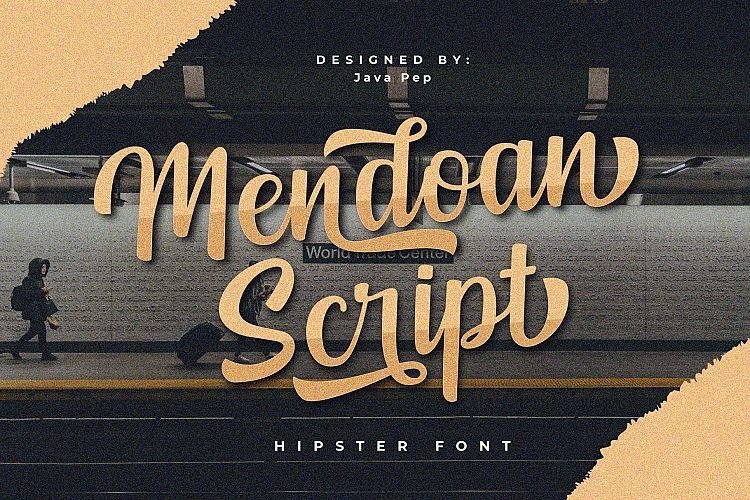
Mendoan Script Font
Hello friend. Mendoan Script Font is a bold script font with unique design taste and a classic retro style of the 80s, a stylish Font Style. This beautiful script font offers your personal touch to your latest art project with elegant, classy and modern look.
It’s designed by JavaPep. This font made by inspired by hipster style that brings youth, excitement, art, intelligence, and movement.